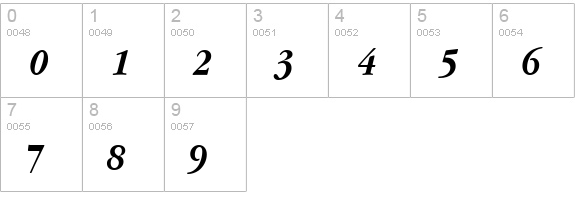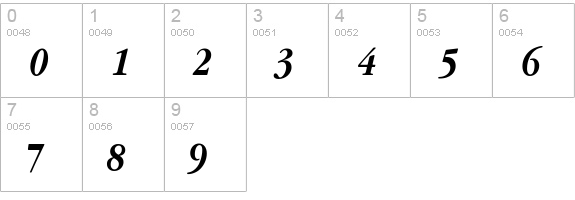
Apple Garamond Bold Italic is a strong, high-contrast, italic variant in the Apple typeface family \xE2\x80\x94 well suited to headlines, attention-grabbing titles, and strong calls-to-action.
Apple Garamond Bold Italic is a classic and elegant font that exudes sophistication and style. With its bold and italicized design, this typeface adds a touch of flair and modernity to any project or design. The graceful curves and clean lines of Apple Garamond Bold Italic make it perfect for headings, titles, and other prominent text elements. What sets Apple Garamond Bold Italic apart is its versatility - it can be used in a variety of contexts, from print materials to digital designs. Whether you're working on a poster, website, or branding project, this font will elevate your work to the next level. And the best part? Apple Garamond Bold Italic is available for free download at FontsMarket.com. Simply head over to the website and start using this exquisite font in your projects today. Don't miss out on the opportunity to add this beautiful typeface to your collection!